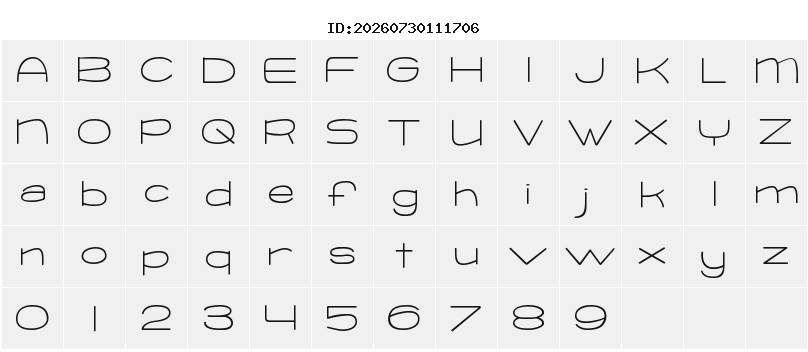
KG Change This Heart Preview
• Font Name: KG Change This Heart
• Full Font Name: KG Change This Heart
• Designer: Kimberly Geswein
About KG Change This Heart.ttf
KG Change This Heart.ttf is a modern, elegant sans-serif font designed for ultimate readability and visual harmony. Perfect for branding, headlines, web design, and print materials.